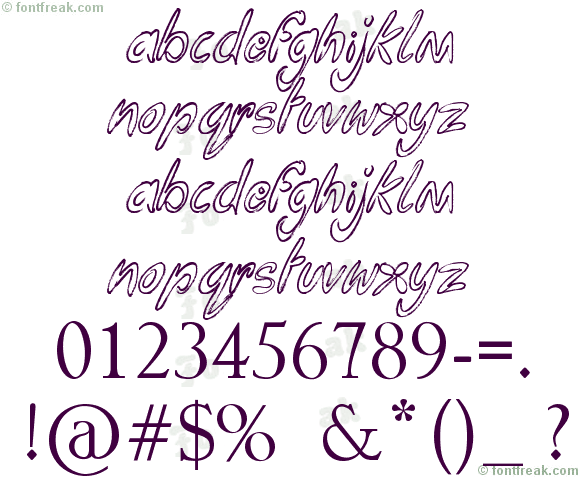
Funga Donga Binge
Funga Donga Binge by Jonathan S. Harris is a charming and whimsical decorative font that captures attention with its playful character. This font stands out in the display category, featuring a unique combination of curvy, fluid lines that evoke a sense of joy and creativity. The stroke weight is medium, providing a balanced appearance that enhances readability while maintaining an artistic flair. The overall spacing is generous, allowing the letters to breathe and making it suitable for various applications. Decorative elements, such as playful curls and loops, add a distinctive touch, making this font particularly engaging.
Funga Donga Binge is an excellent choice for a variety of creative projects. It shines in wedding invitations, where its joyful demeanor can convey a sense of celebration and love. Additionally, it works wonderfully for movie posters, especially for genres like comedy or family films, where a lighthearted aesthetic is desired. Restaurant menus can benefit from this font, especially for eateries looking to showcase a fun and inviting atmosphere. Moreover, it is perfect for greeting cards, providing a cheerful sentiment that resonates with recipients. The target audience for this font includes graphic designers seeking unique typography options, small business owners wanting to create memorable branding, and content creators looking to add a playful touch to their projects.
In conclusion, Funga Donga Binge font free download offers a delightful option for anyone looking to infuse their work with personality and charm. Its distinctive style and versatility make it a standout choice for those seeking to capture attention and evoke emotion in their designs. Whether for personal or professional use, this font is sure to leave a lasting impression.